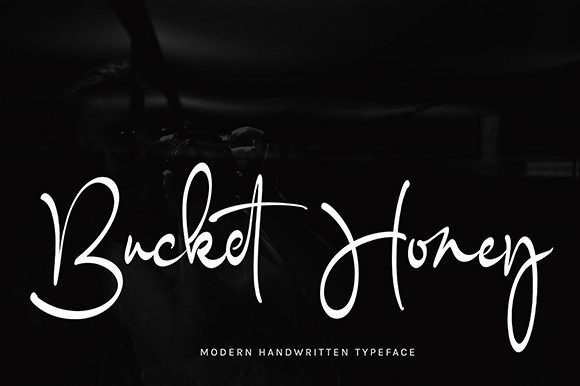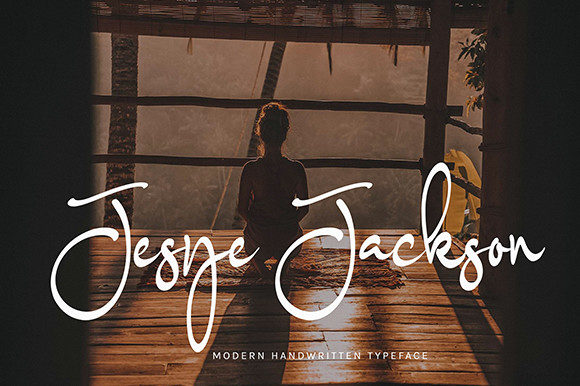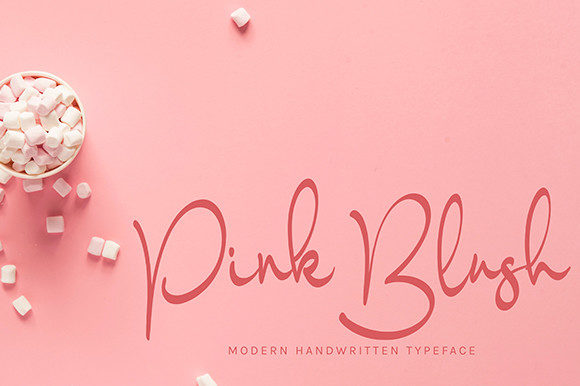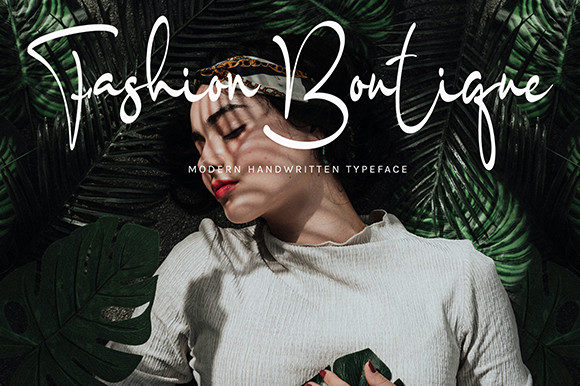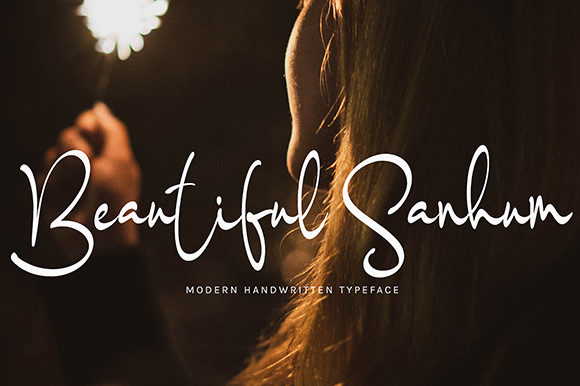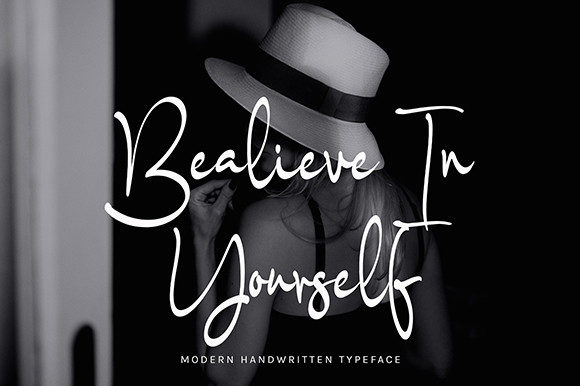
Discover the Elegance of Antique Fontbear: A Fashionable Script Font
Are you a designer or crafter looking for a font that exudes romance and sophistication? Look no further than Antique Fontbear, a stylish script font that’s perfect for projects that require lovely, elegant typography. In this article, we’ll dive into the features and benefits of Antique Fontbear, and explore how you can use it to elevate your designs.
What is Antique Fontbear?
Antique Fontbear is a fashionable and stylish script font that’s designed to add a touch of romance and whimsy to your projects. With its flowing lines and delicate curves, this font is perfect for creating beautiful, eye-catching designs that will leave a lasting impression. Whether you’re working on a wedding invitation, a branding project, or a craft tutorial, Antique Fontbear is the perfect choice.
PUA Encoding: What does it mean?
One of the standout features of Antique Fontbear is its PUA (Private Use Area) encoding. But what does that mean? In simple terms, PUA encoding allows you to access all of the glyphs and swashes in the font with ease. This means that you can create beautiful, intricate designs without having to worry about complicated font editing or tedious workarounds.
With PUA encoding, you can:
- Access a wide range of glyphs and swashes
- Easily create beautiful, intricate designs
- Save time and effort when working with the font
Features of Antique Fontbear
So, what makes Antique Fontbear so special? Here are just a few of the features that set it apart:
- Fashionable and stylish design: Antique Fontbear is a beautifully designed script font that’s perfect for creating elegant, eye-catching designs.
- PUA encoded: With PUA encoding, you can access all of the glyphs and swashes in the font with ease.
- Lovely, romantic typography: Antique Fontbear is designed to create beautiful, romantic typography that’s perfect for wedding invitations, branding projects, and more.
- Easy to use: Whether you’re a seasoned designer or just starting out, Antique Fontbear is easy to use and requires no complicated font editing.
Using Antique Fontbear in Your Designs
So, how can you use Antique Fontbear in your designs? Here are a few ideas to get you started:
- Wedding invitations: Antique Fontbear is perfect for creating beautiful, elegant wedding invitations that will set the tone for the big day.
- Branding projects: Use Antique Fontbear to create a romantic, sophisticated brand identity that’s sure to impress.
- Craft tutorials: Add a touch of elegance to your craft tutorials with Antique Fontbear, perfect for creating beautiful, eye-catching graphics.
- Stationery and cards: Use Antique Fontbear to create beautiful, handmade stationery and cards that will make a lasting impression.
Tips and Tricks for Working with Antique Fontbear
Here are a few tips and tricks to help you get the most out of Antique Fontbear:
- Experiment with different sizes and colors: Antique Fontbear looks beautiful in a range of sizes and colors, so don’t be afraid to experiment and find the perfect combination for your design.
- Use the font’s swashes and glyphs: Take advantage of Antique Fontbear’s PUA encoding and use the font’s swashes and glyphs to add intricate details to your design.
- Pair with other fonts: Antique Fontbear pairs beautifully with other fonts, so try combining it with a bold sans-serif font for a striking contrast.
In conclusion, Antique Fontbear is a fashionable and stylish script font that’s perfect for designers and crafters looking for a romantic, elegant typography solution. With its PUA encoding, lovely typography, and ease of use, Antique Fontbear is the perfect choice for a wide range of projects. Whether you’re working on a wedding invitation, branding project, or craft tutorial, Antique Fontbear is sure to impress. So why wait? Download Antique Fontbear today and start creating beautiful, eye-catching designs that will leave a lasting impression!